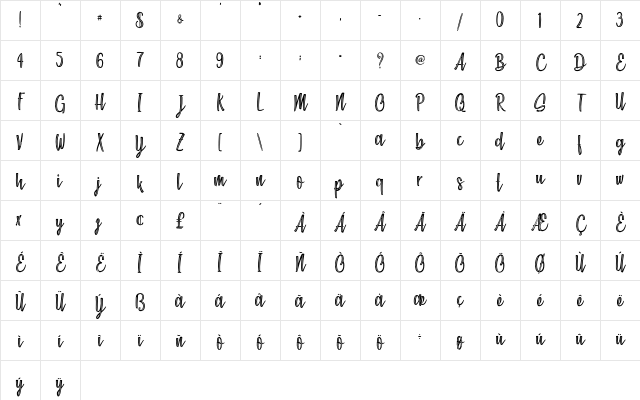
Complete Chocolate Kids - Personal Use Regular glyph index. Displaying only characters natively supported by Chocolate Kids - Personal Use Regular font.
Chocolate Kids - Personal Use has an approachable, lighthearted character - its loose, expressive forms are well-suited to children's content, casual branding, and fun-first design.
Font Pairing: Pairs well with a rounded or humanist sans for body copy, maintaining the friendly tone without relying on Chocolate Kids - Personal Use to carry extended reading.
Pro Tip: Use Chocolate Kids - Personal Use at larger display sizes where its expressive character can land. Pair with a clean, simple sans for body copy to maintain readability.